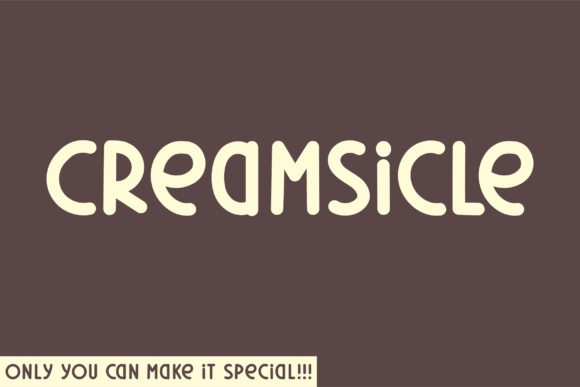
The Perfect Blend of Design and Inspiration
Have you ever been brainstorming a new project and suddenly, a burst of creativity strikes? That’s exactly what happened when the Creamsicle Font was born – a unique sans serif font that’s as refreshing as its namesake. This natural font is the perfect blend of form and function, making it a must-have for designers looking to add a touch of personality to their work.
With the Creamsicle Font, designers can create quotes, notes, and even product designs that exude a sense of simplicity and elegance. Its distinctive character is achieved without altering a single node in each character’s indentation, giving it a truly one-of-a-kind feel. Whether you’re a seasoned pro or just starting out, this font is sure to be a valuable addition to your design arsenal.
Creamsicle Font Key Features
- Font Family: Creamsicle Font is a sans-serif font family designed for digital use.
- Character Count: The font family includes a wide range of characters, including Latin, Cyrillic, and Greek alphabets, as well as punctuation marks and symbols.
- Unique Characteristics: Creamsicle Font is known for its vibrant and playful color scheme, making it ideal for use in digital media, such as mobile apps, websites, and video games.
Review of Creamsicle Font
Overall, I found the Creamsicle Font to be a delightful and playful addition to any design project. ✨ The font’s whimsical feel and rounded edges evoke a sense of nostalgia and warmth.
- Unique and creative aesthetic
- Perfect for branding and packaging designs
- Great for adding a touch of whimsy to digital products
However, I did encounter a few limitations that may impact its usability. ⚠️ For instance:
- Limited font sizes and styles may not be suitable for complex or lengthy text
- May not be as readable at small font sizes or on low-resolution screens
- Not suitable for formal or professional applications
Overall, I would recommend the Creamsicle Font for projects that require a playful and creative touch. While it may have its limitations, its unique aesthetic and charm make it a great choice for the right design project.
Use Creamsicle Font for designs that require a playful and retro vibe, such as:
– Children’s party invitations
– Summer-themed promotional materials
– Vintage-inspired advertisements
Experiment with different font sizes, colors, and styles to get the most out of the Creamsicle Font.
Alternatives to Creamsicle Font
Great Vibes is a modern, script font that is perfect for creating a fun and energetic atmosphere. It’s ideal for use in headings, logos, and other design elements where a playful feel is desired.
Compared to Creamsicle Font, Great Vibes has a more refined and elegant look, making it suitable for a wider range of designs.
Carolyna Pro is a high-end, script font that exudes sophistication and luxury. It’s perfect for use in high-end branding, advertising, and editorial design where a premium feel is required.
Compared to Creamsicle Font, Carolyna Pro has a more polished and refined look, making it suitable for designs that require a level of elegance and sophistication.
Carolyna Pro is a high-end, script font that exudes sophistication and luxury. It’s perfect for use in high-end branding, advertising, and editorial design where a premium feel is required.
Compared to Creamsicle Font, Carolyna Pro has a more polished and refined look, making it suitable for designs that require a level of elegance and sophistication.
Lobster is a fun, casual font that is perfect for creating a relaxed and laid-back atmosphere. It’s ideal for use in social media, advertising, and other design elements where a playful feel is desired.